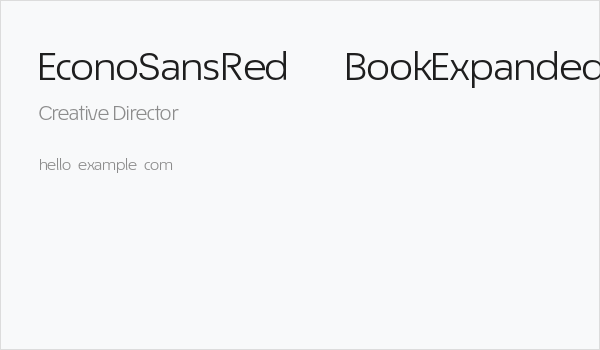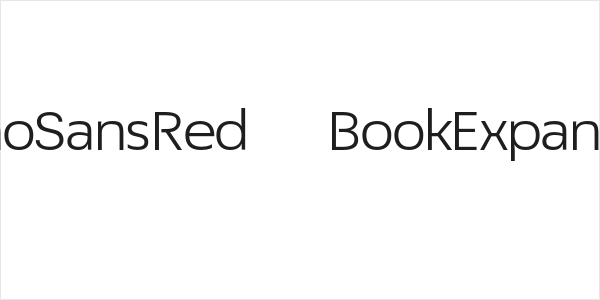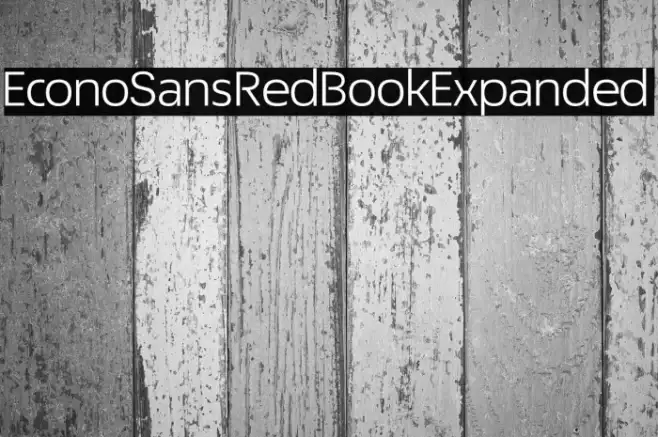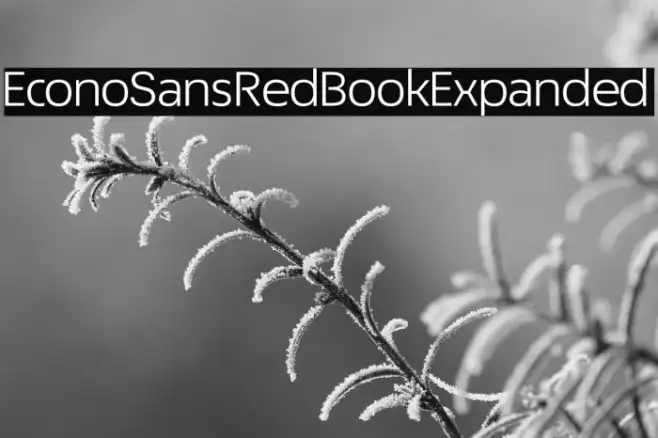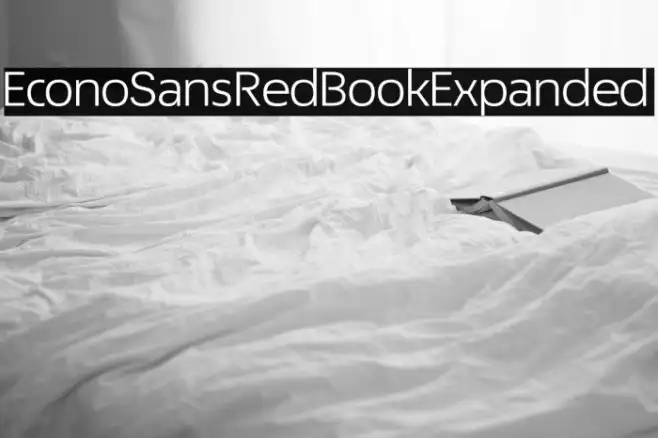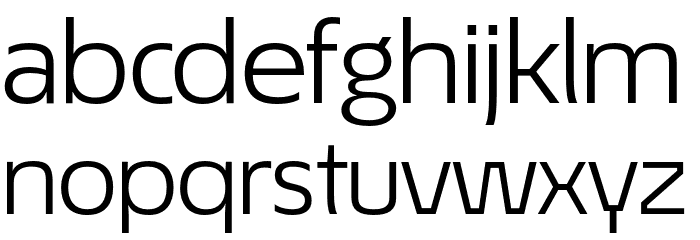
EconoSansRed-53BookExpanded Font
EconoSansRed-53BookExpanded Description
This font features a clean, modern sans-serif design with a focus on readability and simplicity. The characters are evenly spaced, providing a balanced and harmonious appearance. The strokes are consistent in thickness, contributing to a uniform look across all letters. The uppercase and lowercase letters maintain a cohesive style, with rounded edges and smooth curves that enhance the font's legibility. The overall aesthetic is sleek and professional, making it suitable for a variety of applications.
| Proposed Projects | Ideal for corporate branding, web design, and editorial layouts due to its readability and modern appeal. |